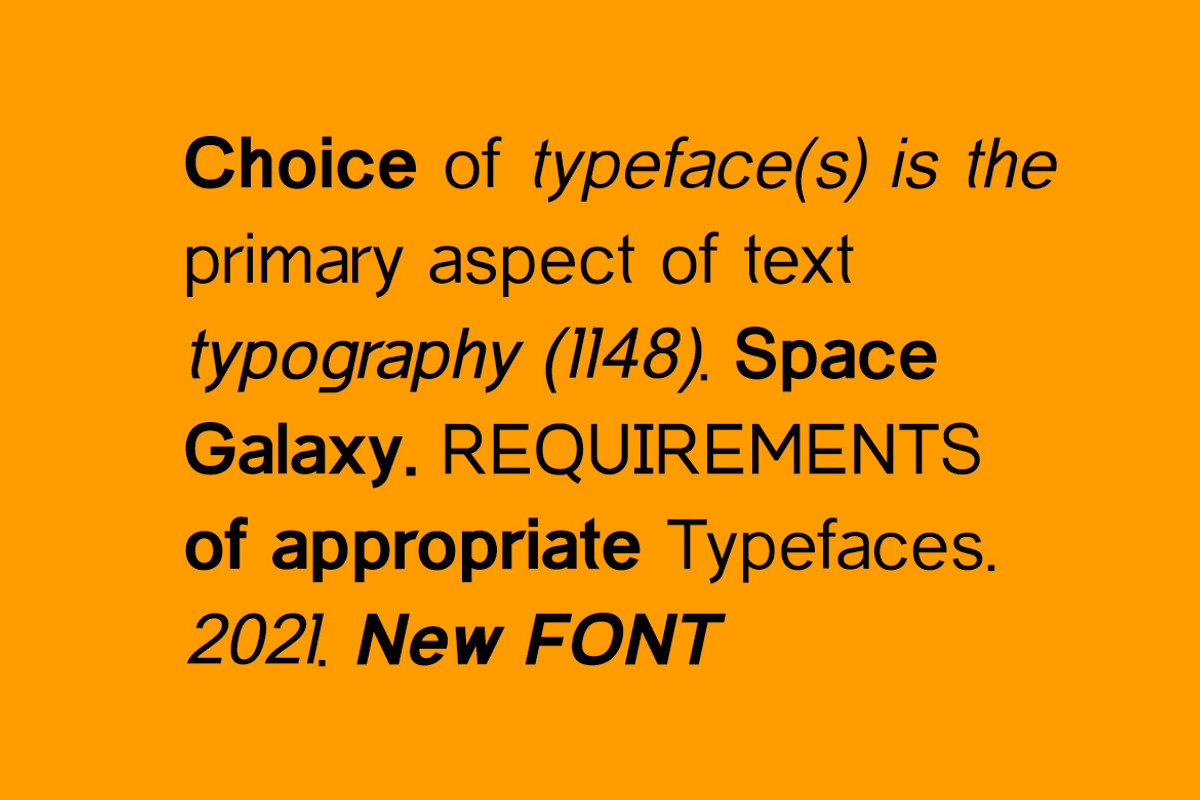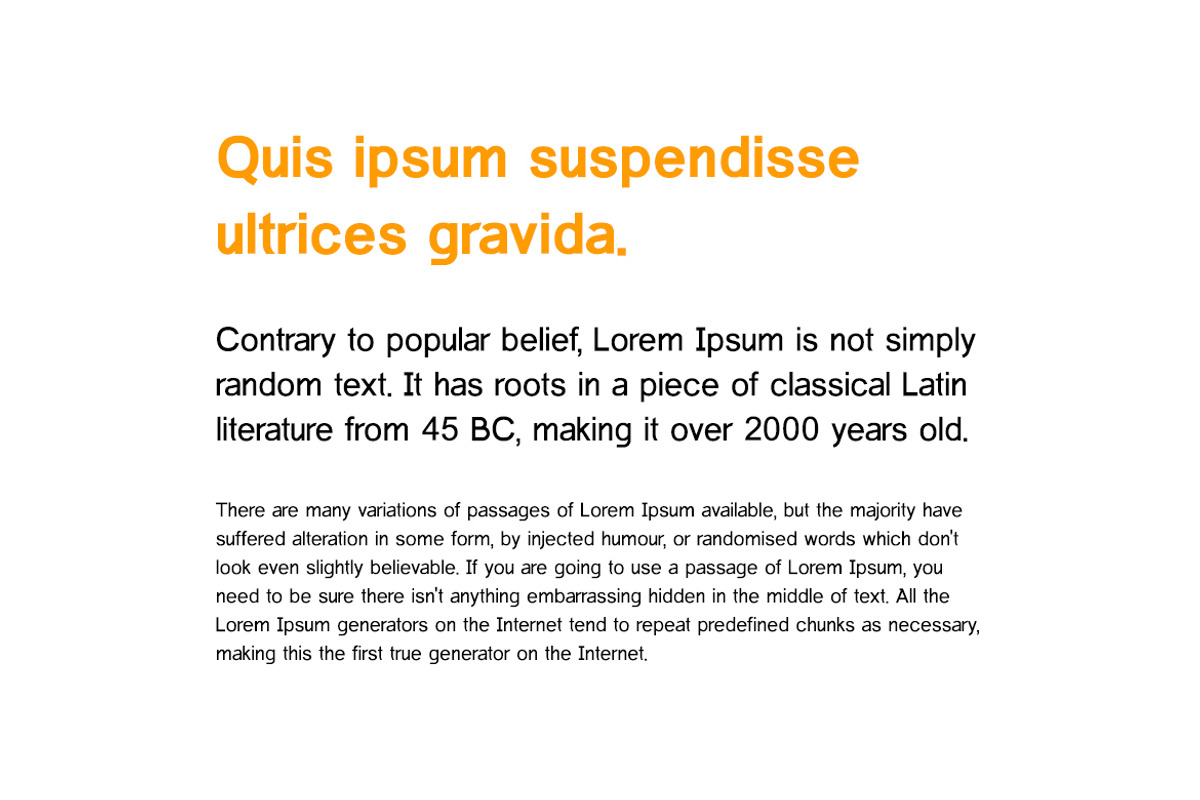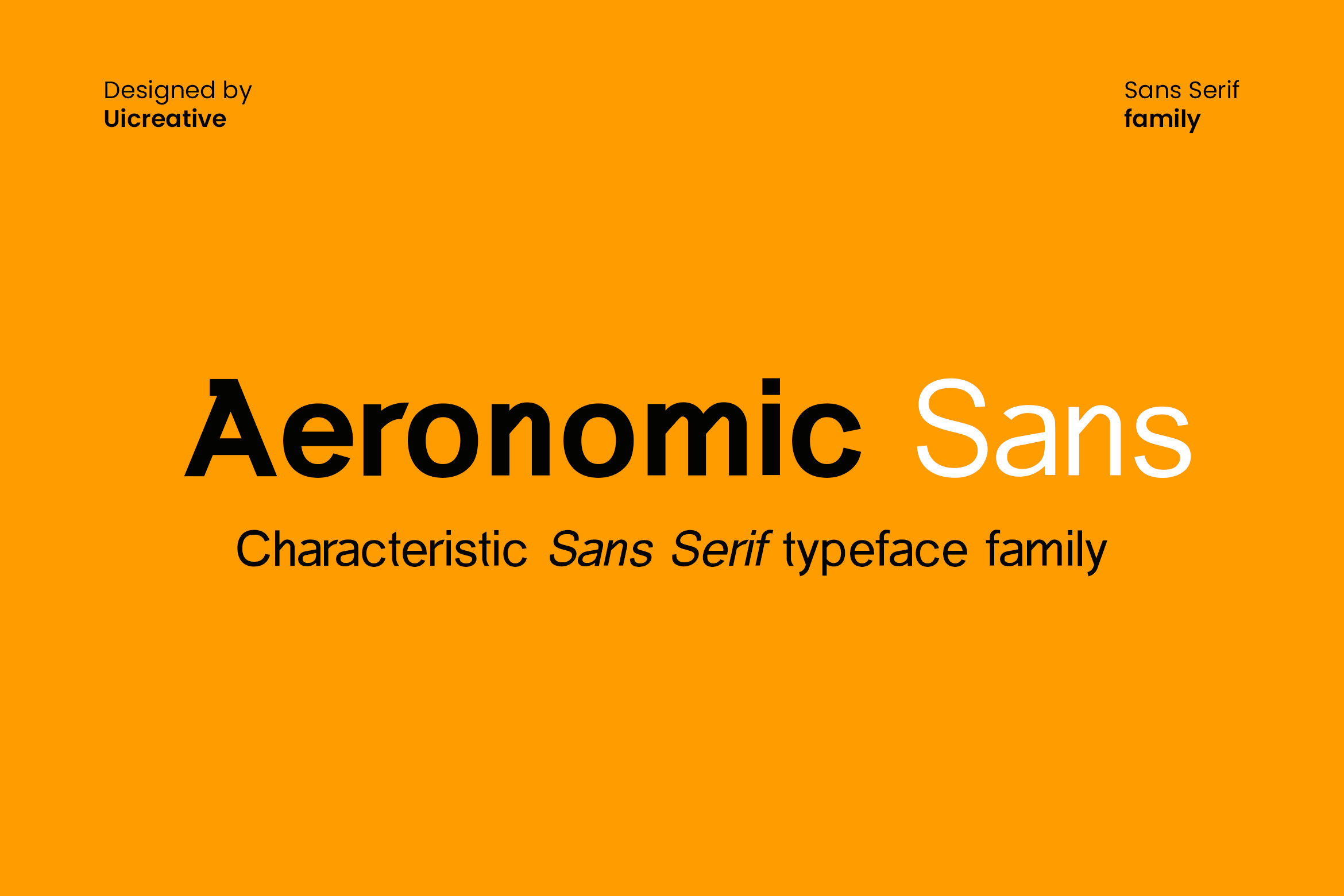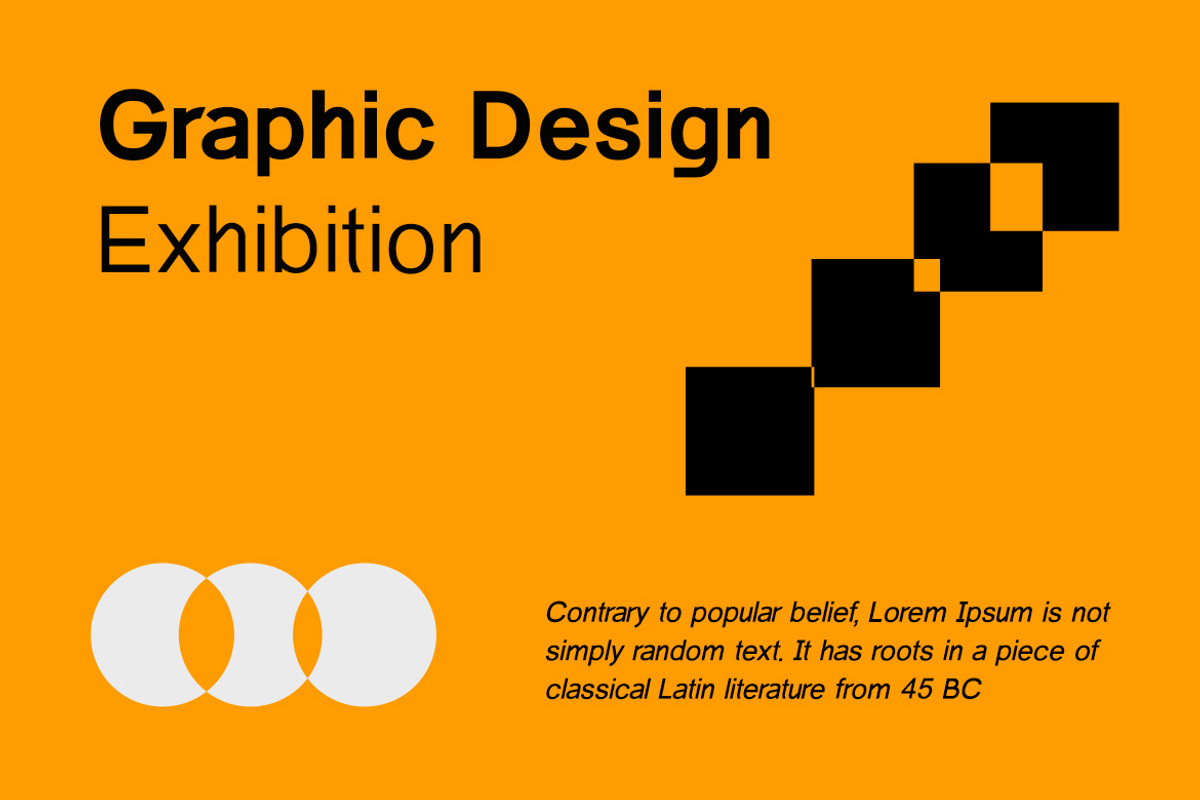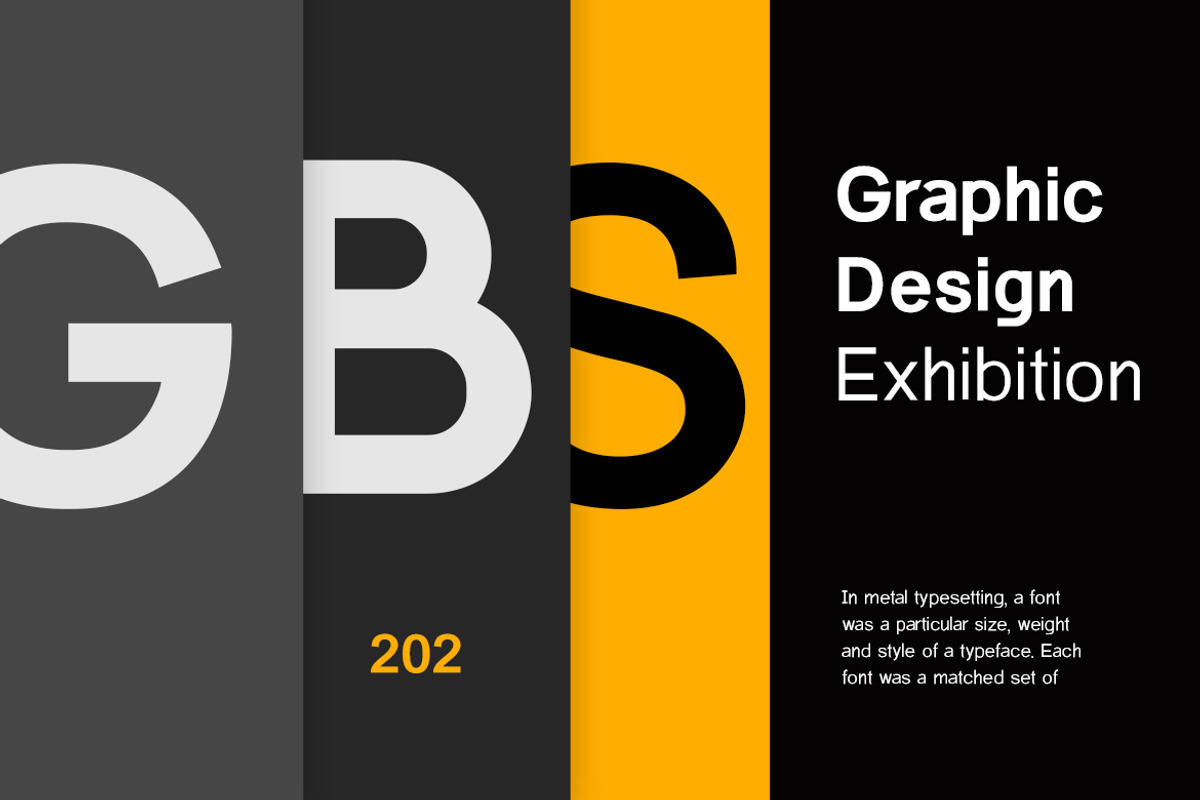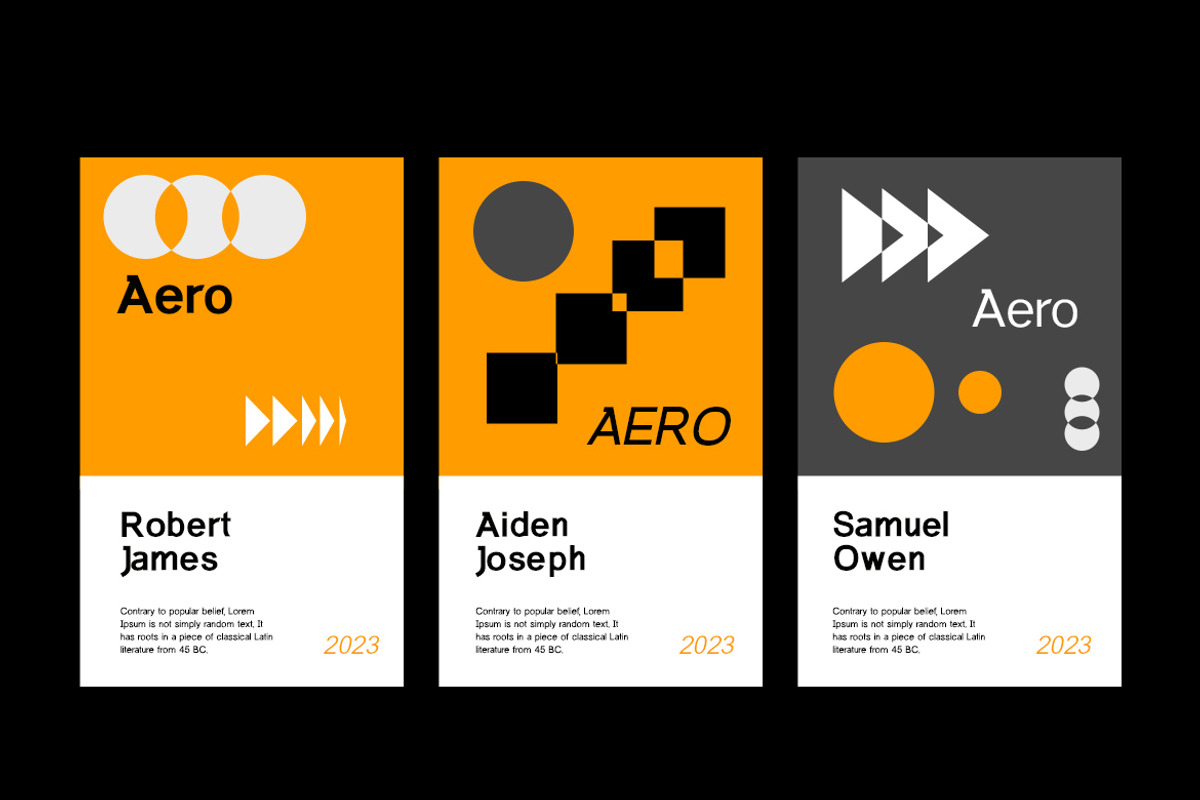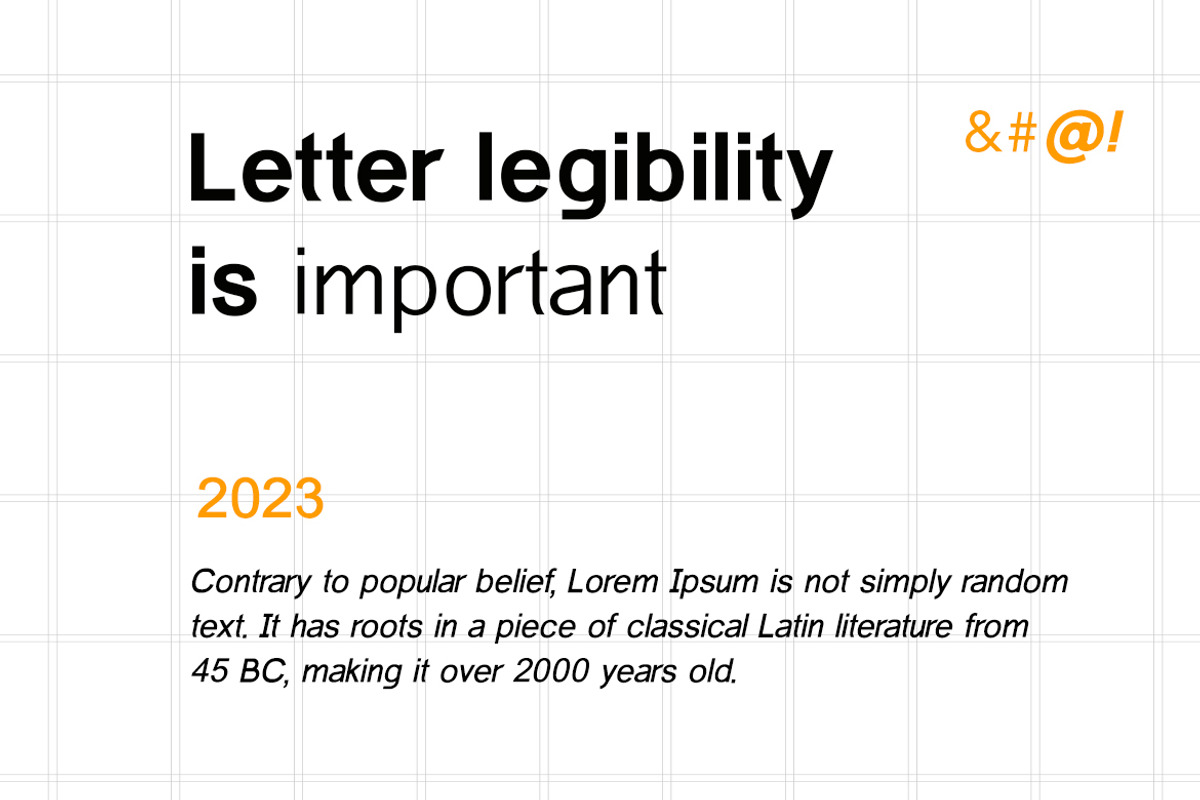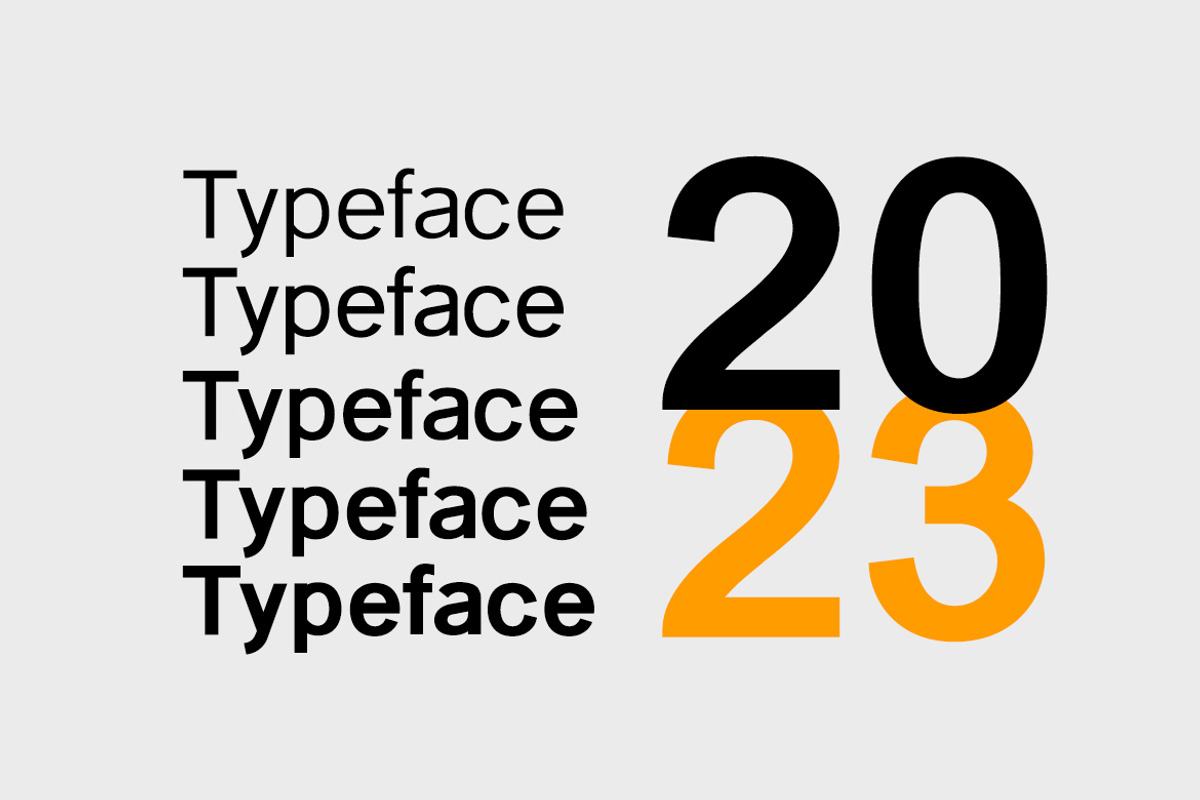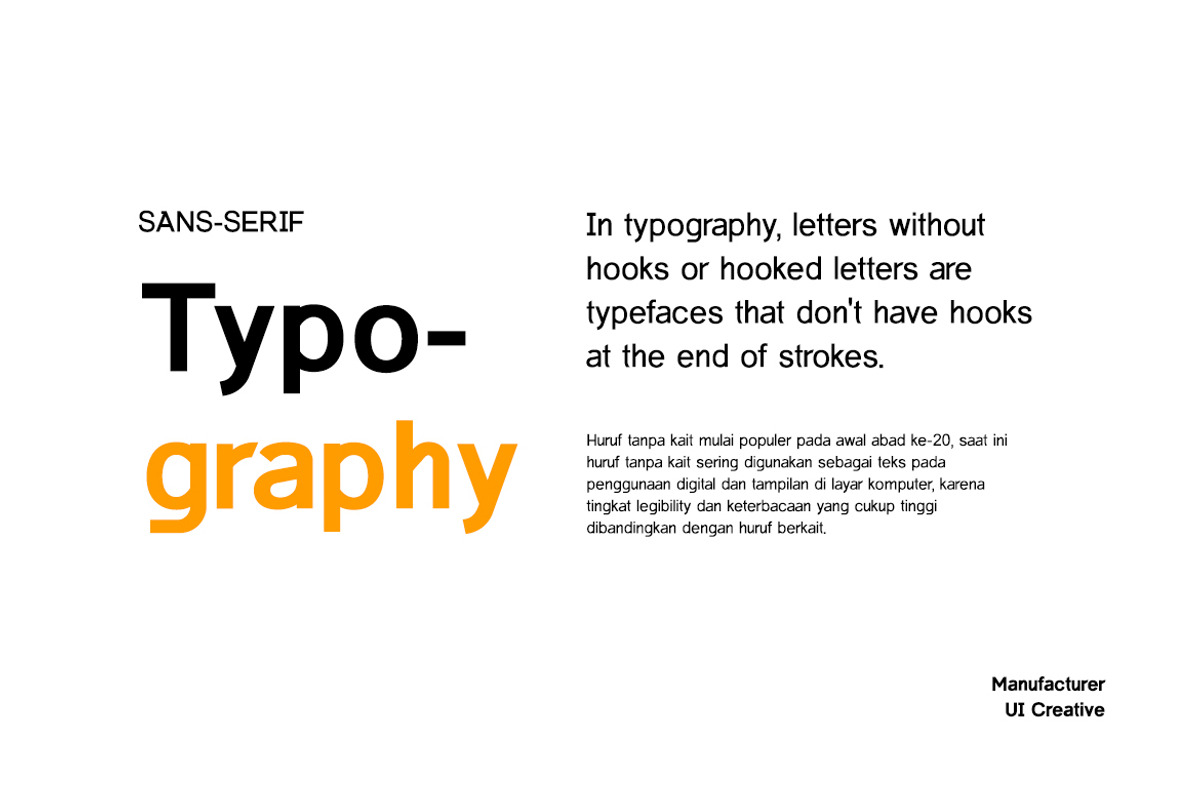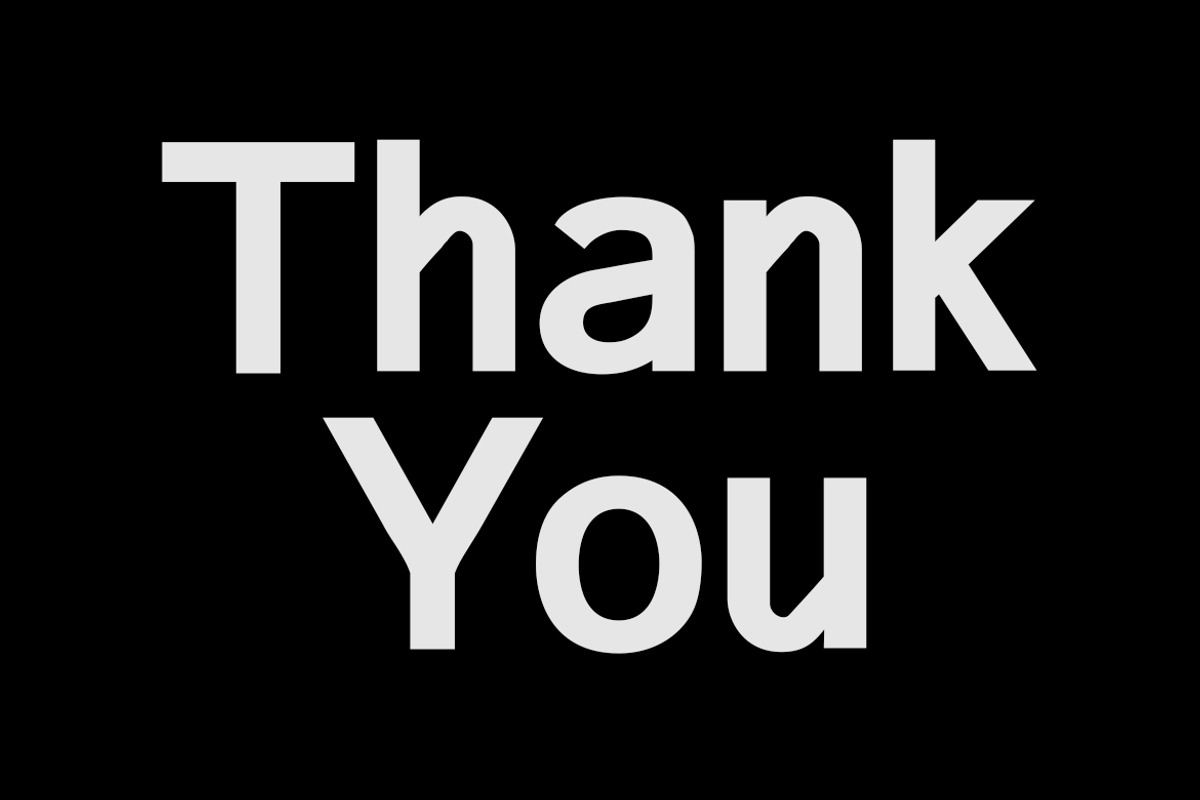
Aeronomic Sans Serif Font
Introducing our new product the name is Aeronomic Sans Serif Font. Modern Serif font that feels beautiful classy, elegant, and modern. This font is ideally suited for a wide variety of projects, such as signature, stationery, logo, wedding, typography quotes, magazine or book covers, website headers, clothing, branding, packaging design, and more. Also, fashion-related branding or editorial design displays both masculine and feminine qualities.